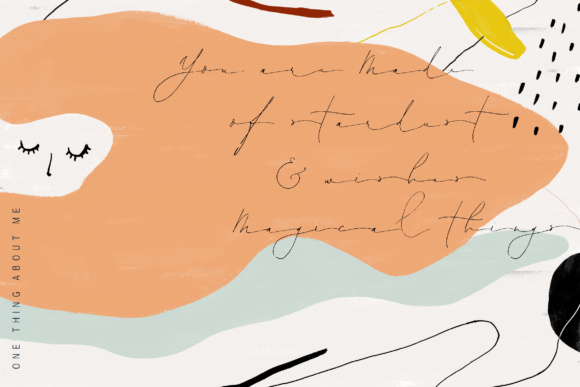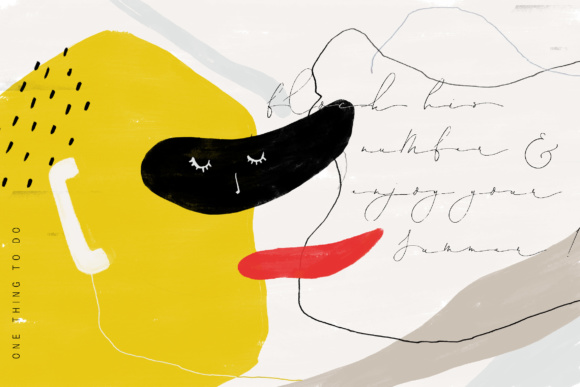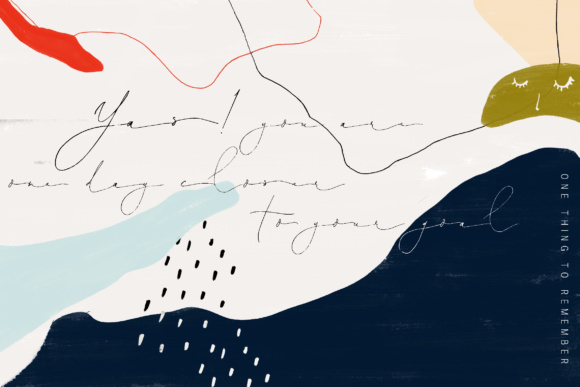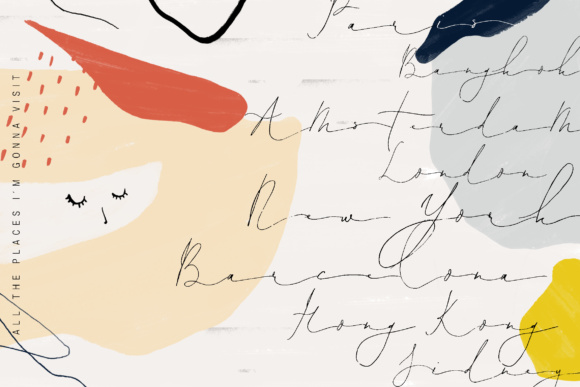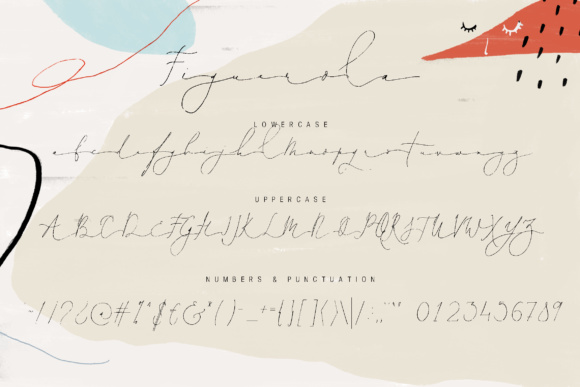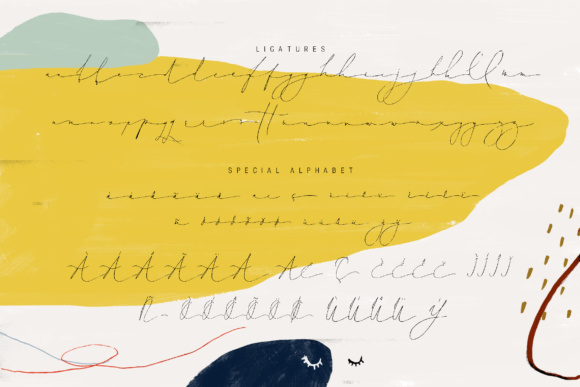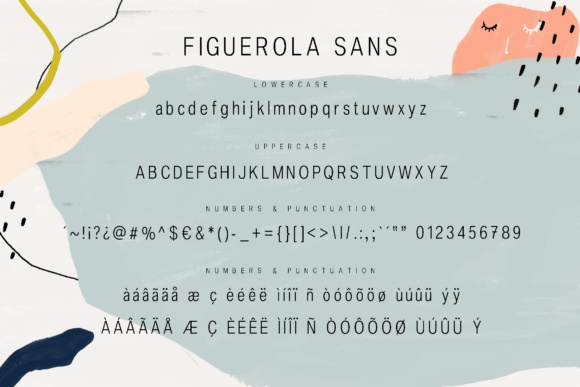
Figuerola Font
About Figuerola Font
Figuerola is a contemporary font that comes in 2 styles that you can mix to create a unique design. Figuerola is best for: blogs, logos, social media, branding, posters, quotes, wedding cards & so forth, you decide!